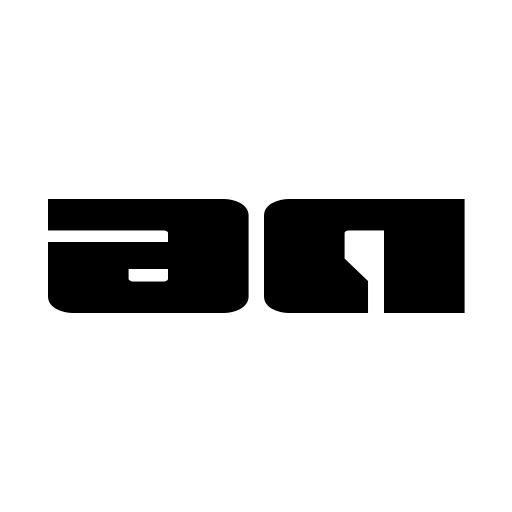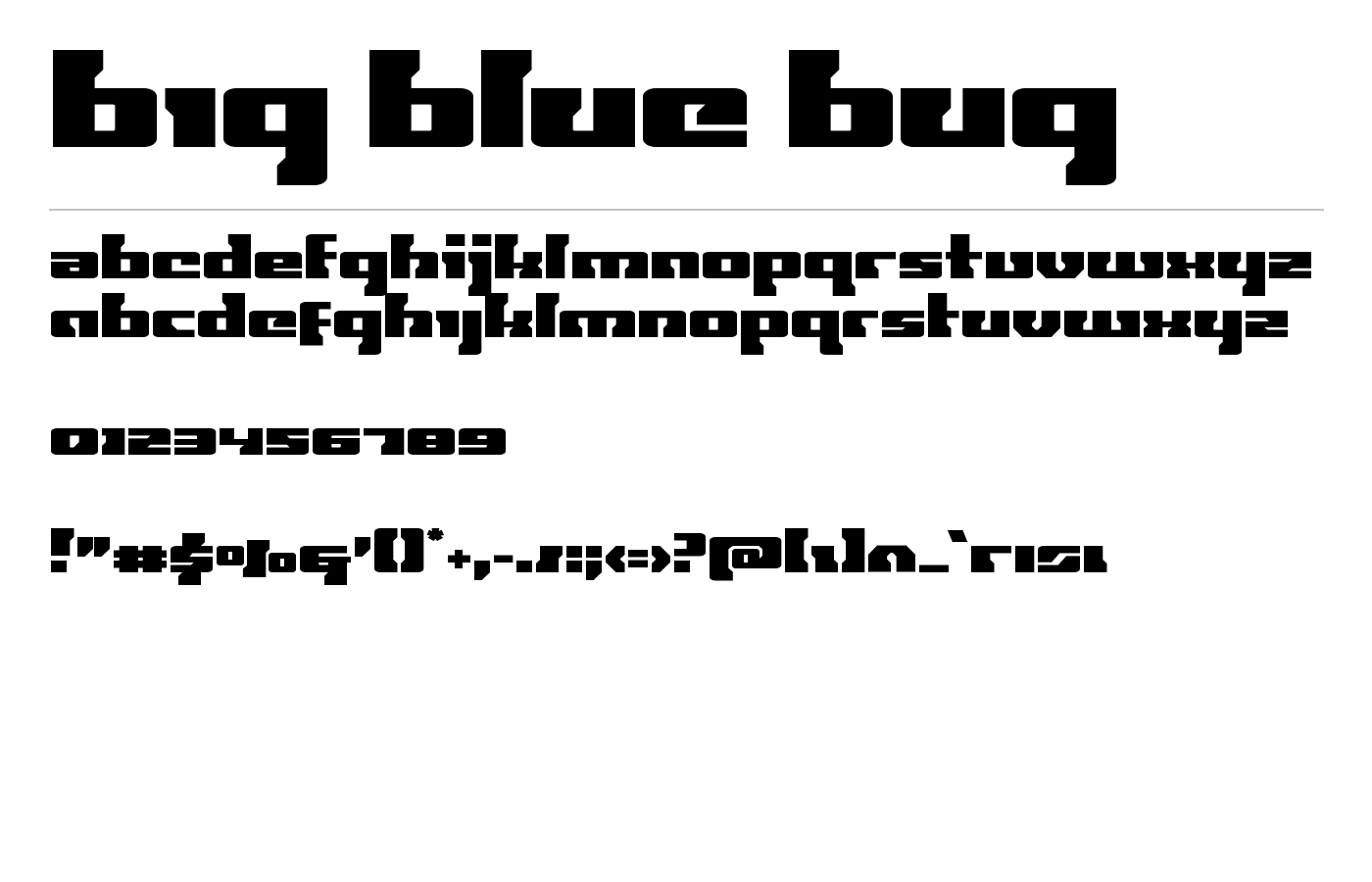
Big Blue Bug is a bold, heavy-weight sans serif font with a distinctive, geometric block style that features strong, sharp edges and a futuristic look. Its wide, compact letterforms and uniform stroke thickness give it a robust, industrial feel, making it ideal for striking headlines, logos, and display purposes where a powerful and modern impact is desired. This font works best in creative branding and poster designs that seek to convey strength and uniqueness.
Big Blue Bug Font